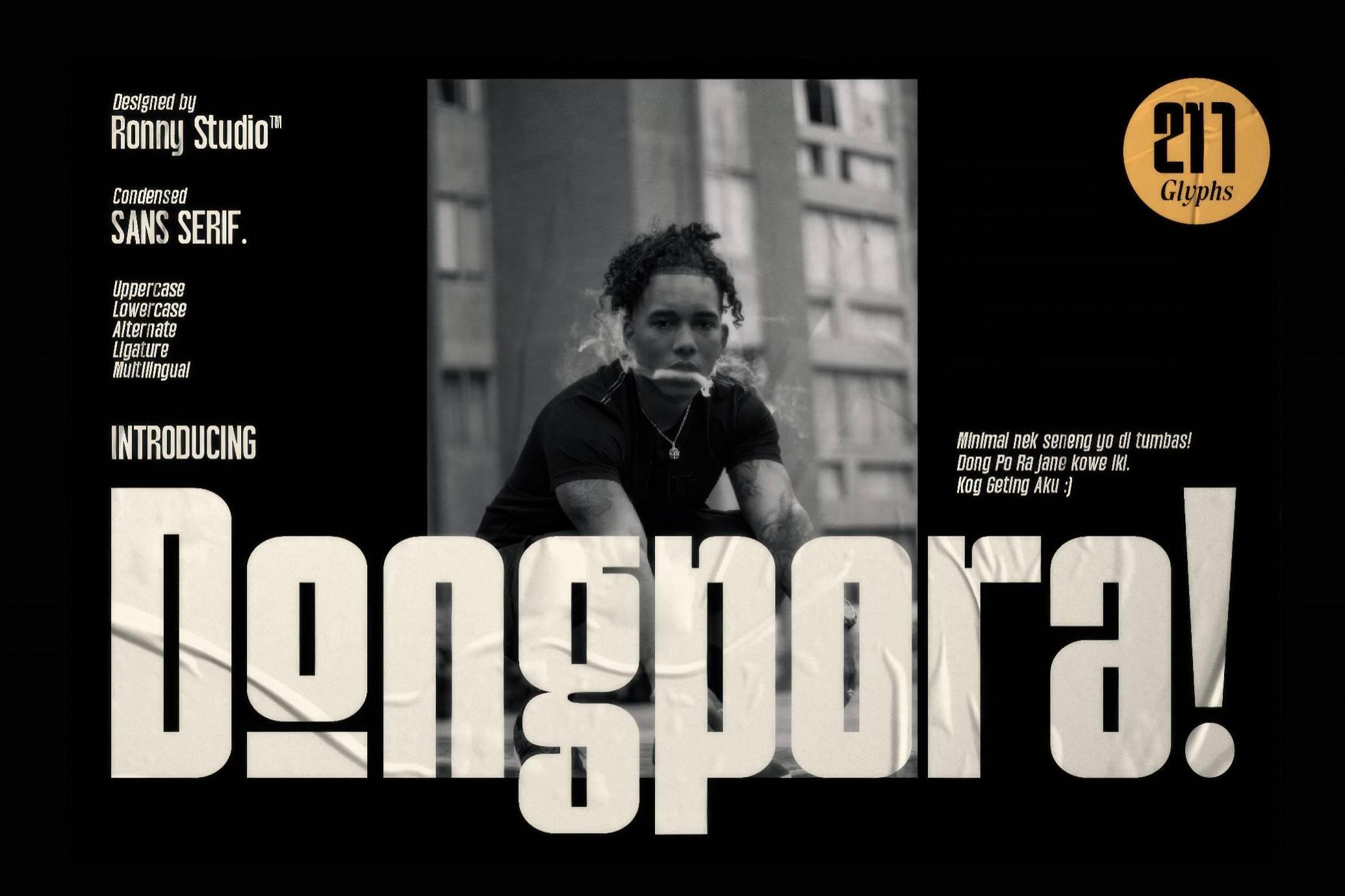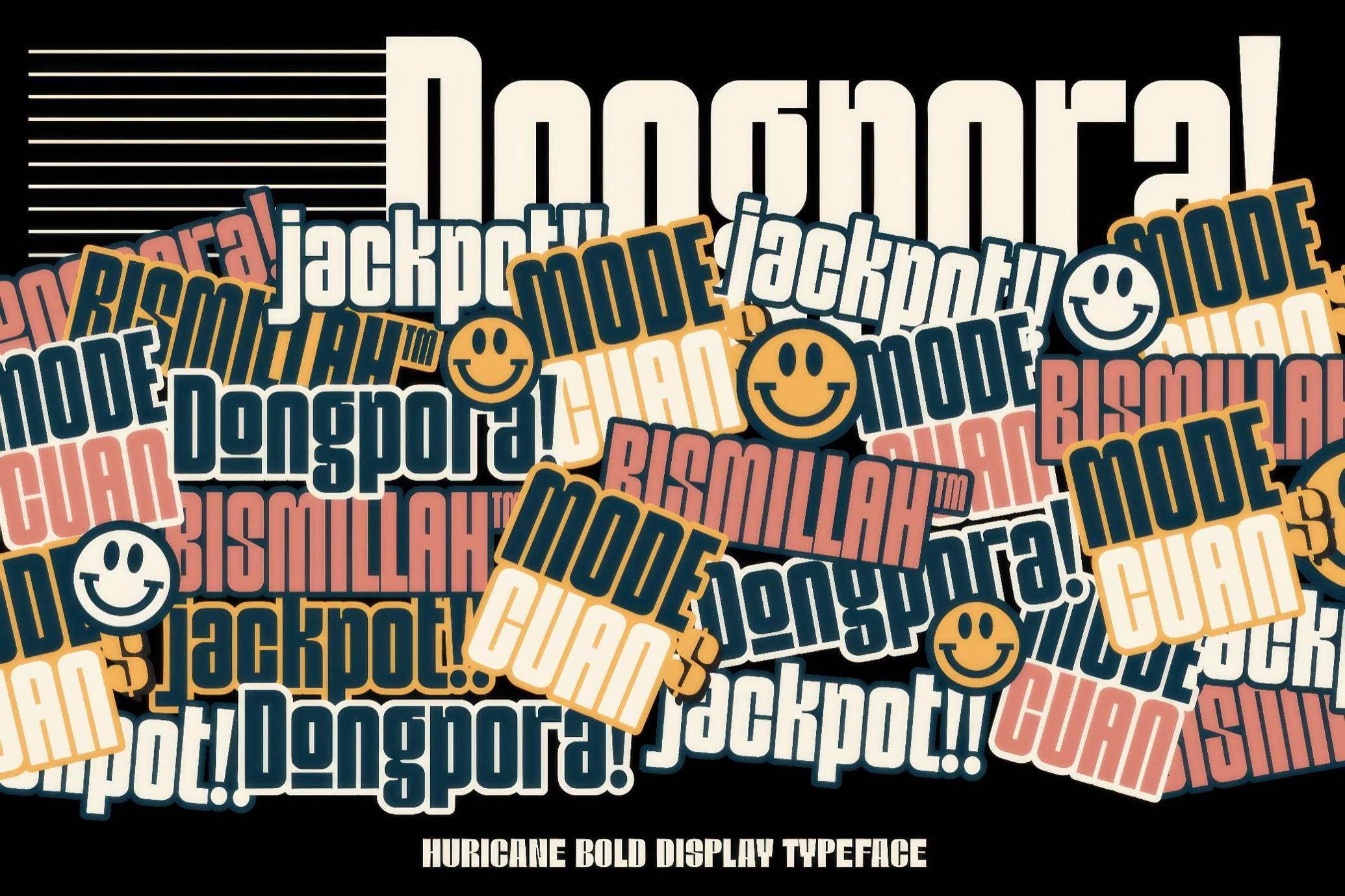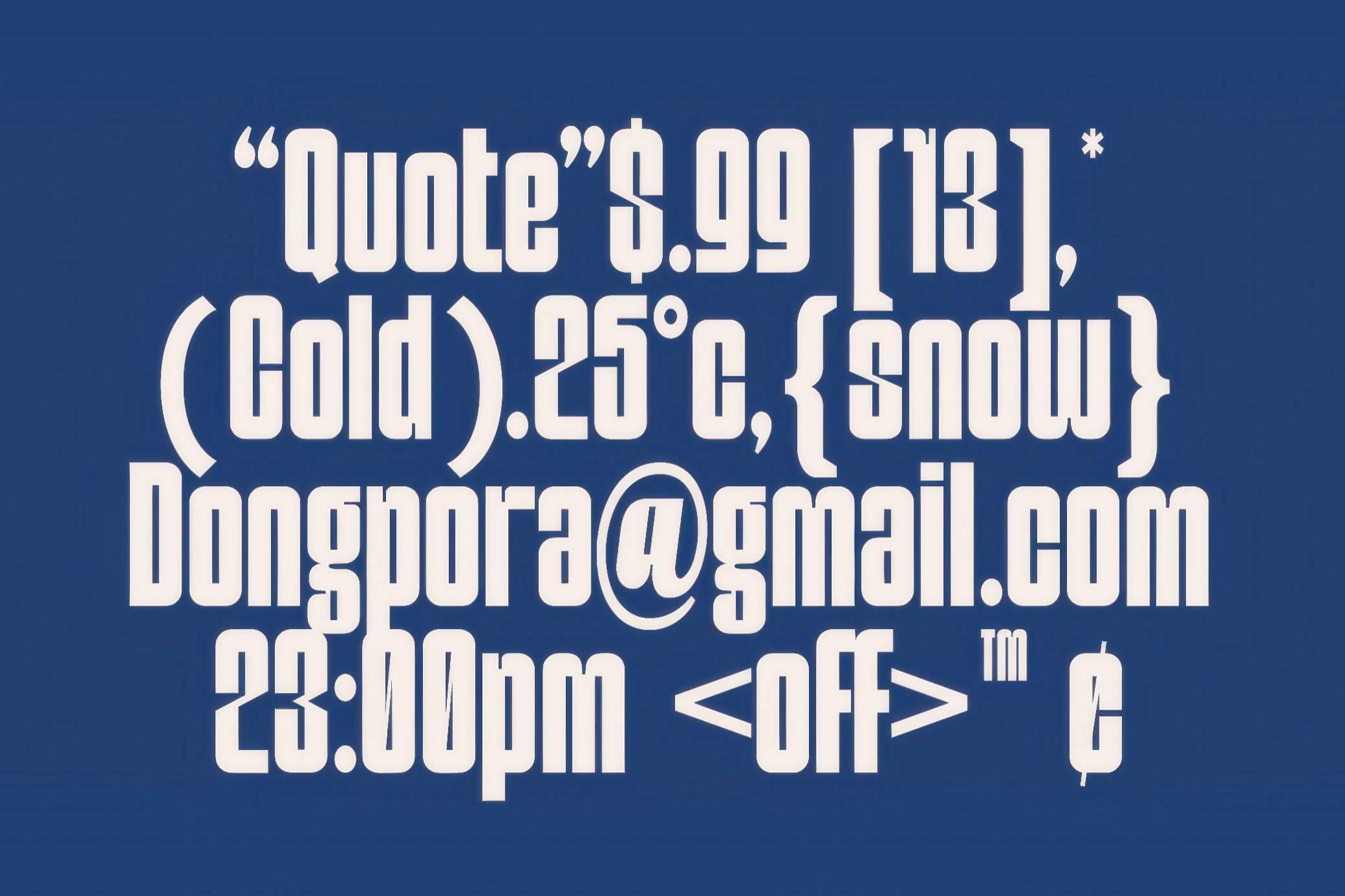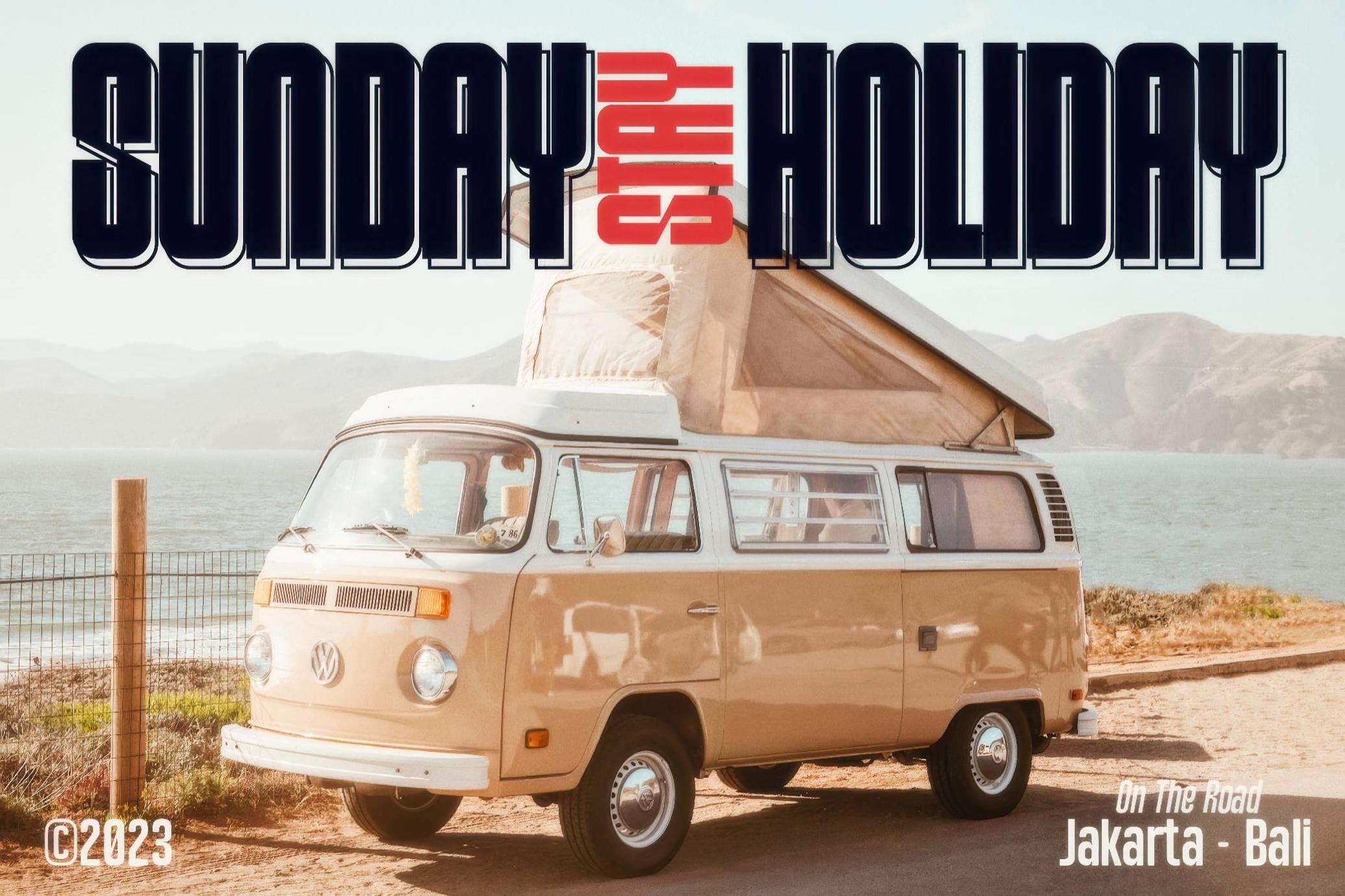
Dongpora — Condensed Sans Serif
Dongpora
The Dongpora font is clean enough for high-impact branding, but still cheeky enough to play in experimental layouts. It balances thick, grounded strokes with sharp detailing and unexpected ligatures. Perfect for logos, streetwear graphics, oversized headlines, posters, and anything else that needs to look bold, modern, and slightly rebellious. The font includes uppercase, lowercase, punctuation, multilingual support, and a goodie bag of alternates and ligatures to keep things fresh.